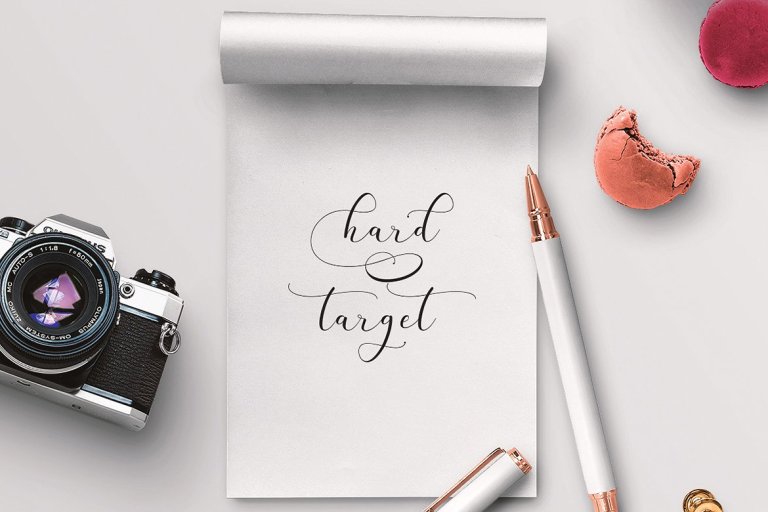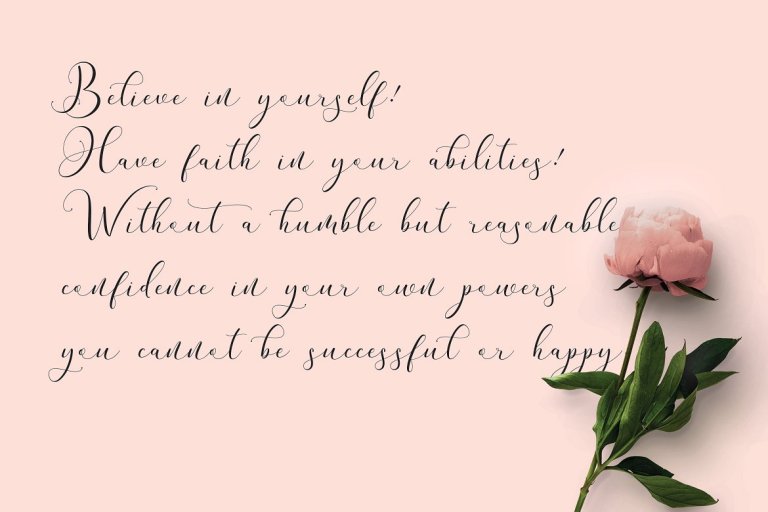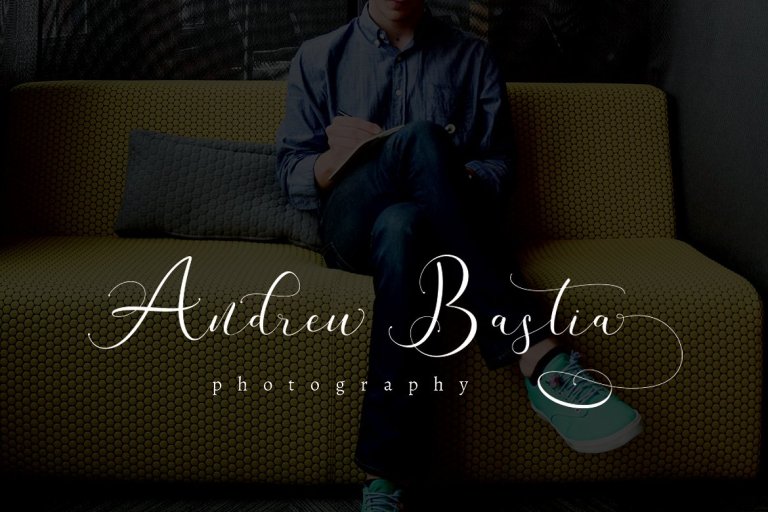
Andieny Script Font
A modern script typeface. It will fit all your design projects. Introducing Andieny Font. Andieny is modern script font, every single letters have been carefully crafted to make your text looks beautiful. With modern script style this font will perfect for many different project ex: quotes, blog header, poster, wedding, branding, logo, fashion, apparel, letter, invitation, stationery, etc.